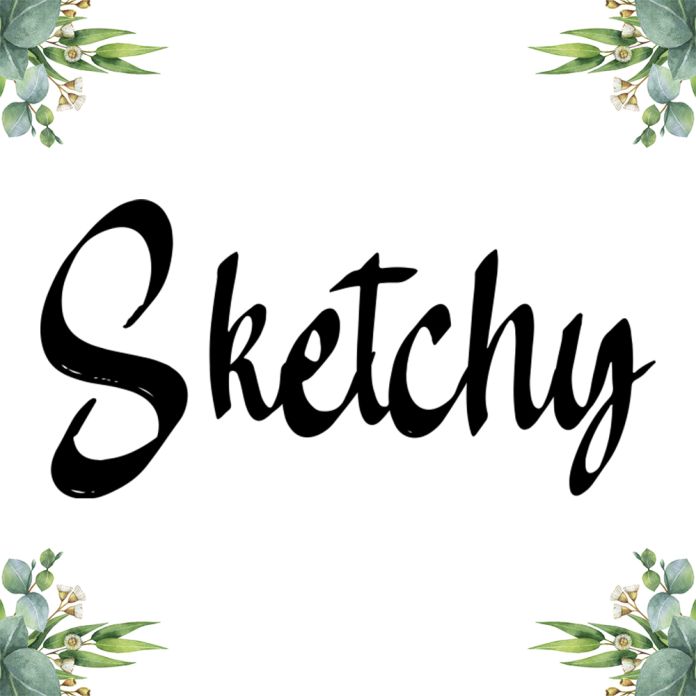
Sketchy is a stylish and incredibly elegant script font. It looks stunning on wedding invitations, thank you cards, quotes, greeting cards, logos, business cards and every other design which needs a handwritten touch.